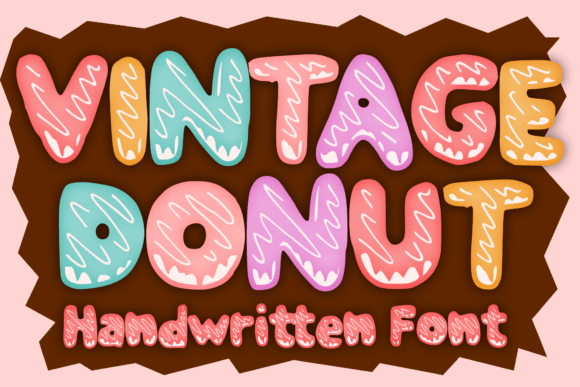
Vintage Donut Font
Vintage Donut is a very playful donut-themed display font. You can use it for anything ranging from t-shirts, kids’ book designs, greeting cards, stickers, and posters, blog writing, social media content, or anything that needs a casual touch. Try it to create lovely designs and feel the good vibes with it!